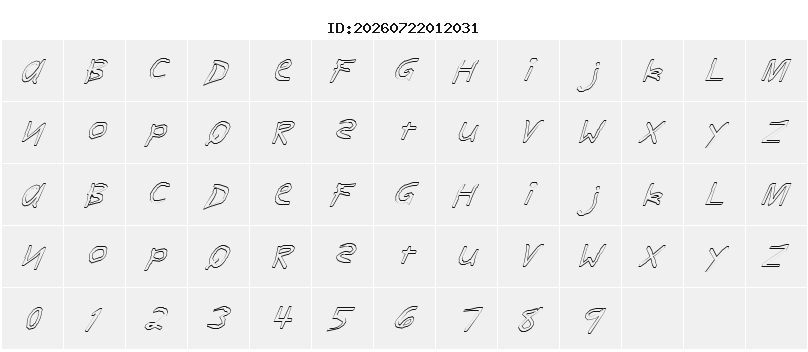
FZ HAND 11 HOLLOW ITALIC Preview
FZ HAND 11 HOLLOW ITALIC.ttf is a modern, elegant sans-serif font designed for ultimate readability and visual harmony. Perfect for branding, headlines, web design, and print materials.